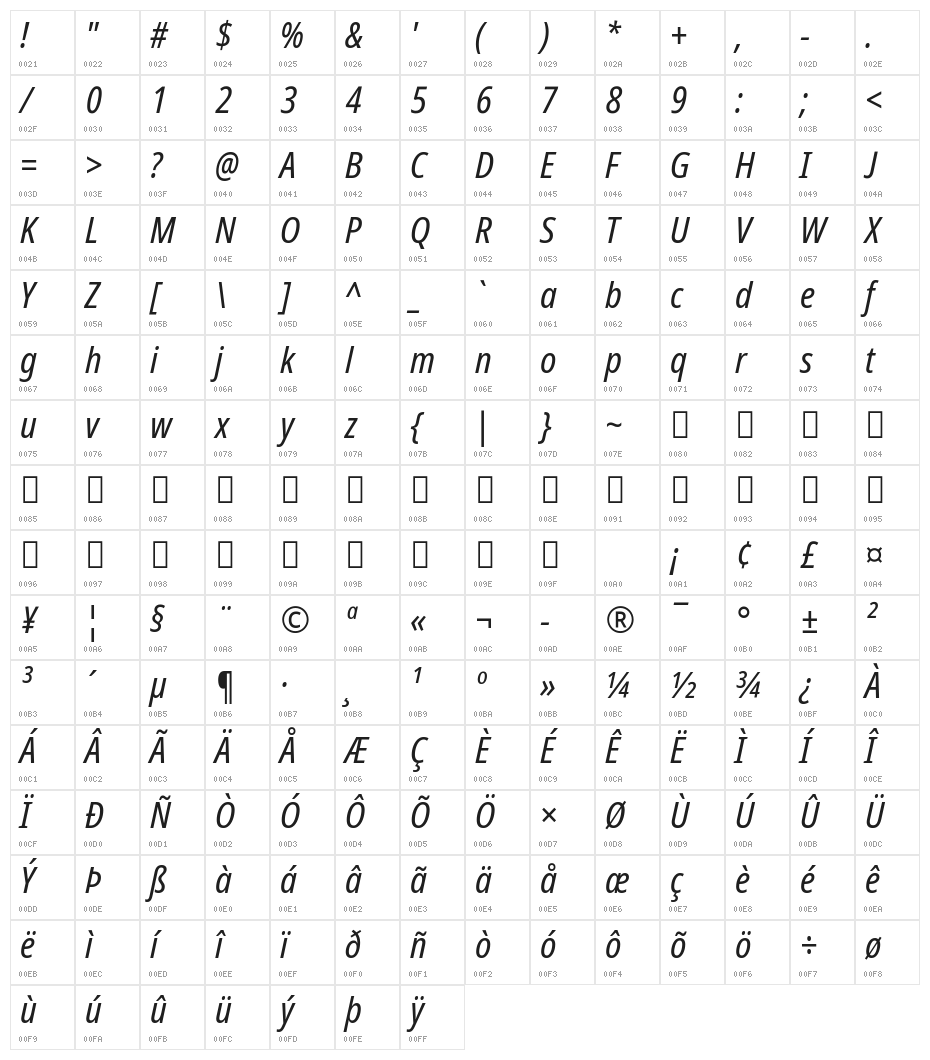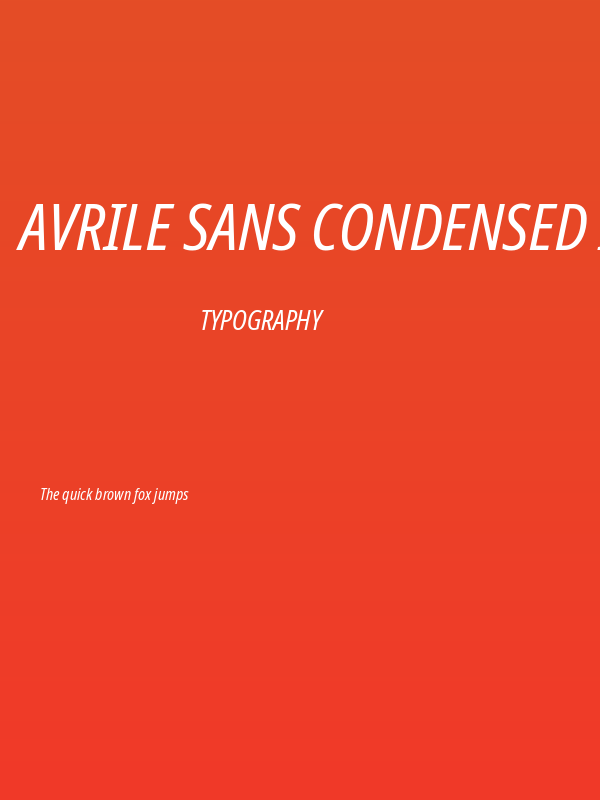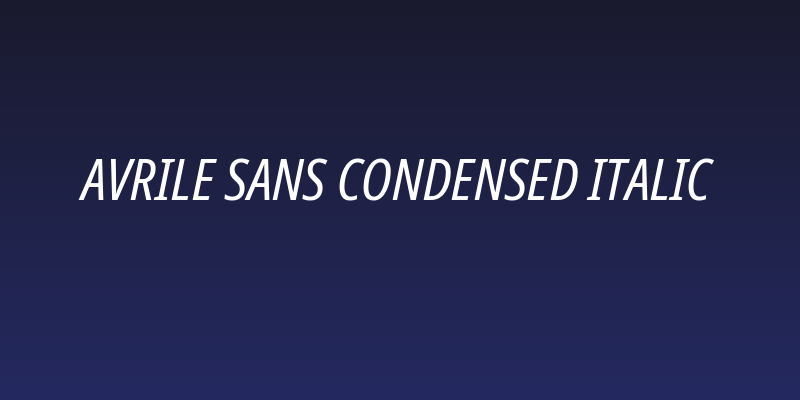
Avrile Sans Condensed Italic Font
Avrile Sans Condensed Italic Description
This typeface presents a sleek and modern aesthetic with its condensed and italicized form. The characters are elegantly slanted, providing a sense of motion and dynamism. The sans-serif design ensures a clean and uncluttered appearance, making it highly legible. The uniform stroke width contributes to a harmonious and balanced look, while the condensed nature allows for efficient use of space. This font is well-suited for contemporary designs that require a touch of sophistication and style. Its versatility makes it ideal for both digital and print media, where clarity and impact are essential.
| Proposed Projects | Ideal for branding, advertising, and editorial design projects that require a modern and sophisticated touch. |